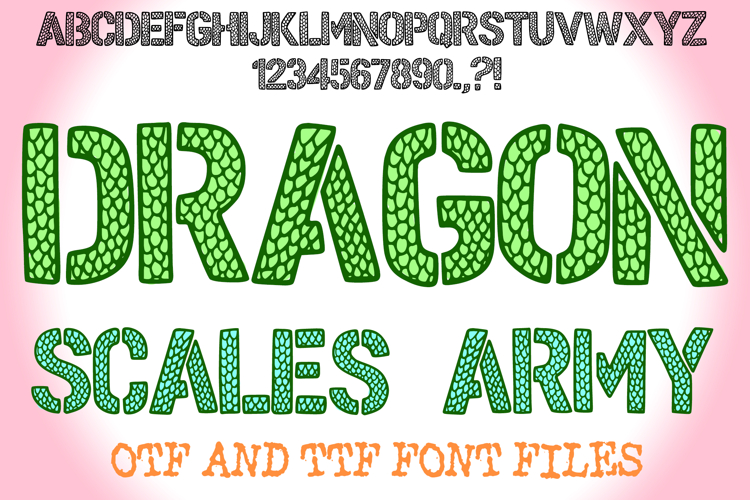
Dragon Scales Army Handwriting Alphabet Lettering ABC Font
Unleash the might of mythical beasts and military precision with Dragon Scale Army Font! This truly unique typeface masterfully blends the rugged authority of army stencils with the ancient, protective texture of dragon scales. It's more than just a font; it's a statement of fierce power and strategic fantasy, designed to bring an epic, tactical, and visually captivating edge to any creative project.
Each character in Dragon Scale Army Font features a bold, assertive outline, reminiscent of military stencil lettering, but its interior is intricately filled with a detailed, interlocking scale pattern. This unique texture evokes the formidable hide of a dragon, creating a fascinating blend of strength, fantasy, and tactical readiness. Ideal for crafting game titles, fantasy book covers, military-themed designs, esports branding, adventure posters, LARP (Live Action Role-Playing) materials, or any project that demands a powerful, legendary, and assertive presence.
Whether you're designing for a medieval battle, a sci-fi war, creating impactful headlines, or adding a unique texture to digital art, this font delivers with uncompromising style. Its clear stencil forms ensure readability while injecting an artistic detail that stands out dramatically from conventional typefaces.
If you're looking to infuse your designs with a sense of epic power, unique texture, and undeniable visual intrigue, Dragon Scale Army Font is your ultimate weapon. Command your creativity with dragon might!